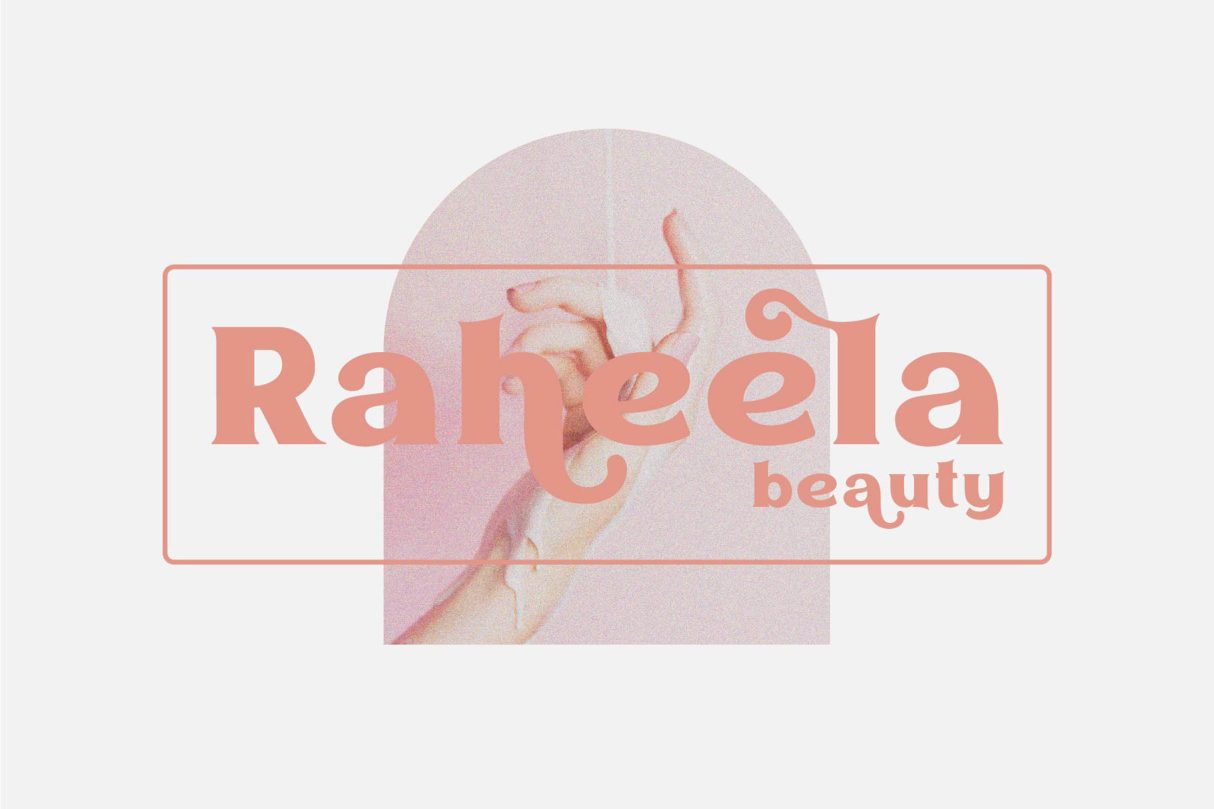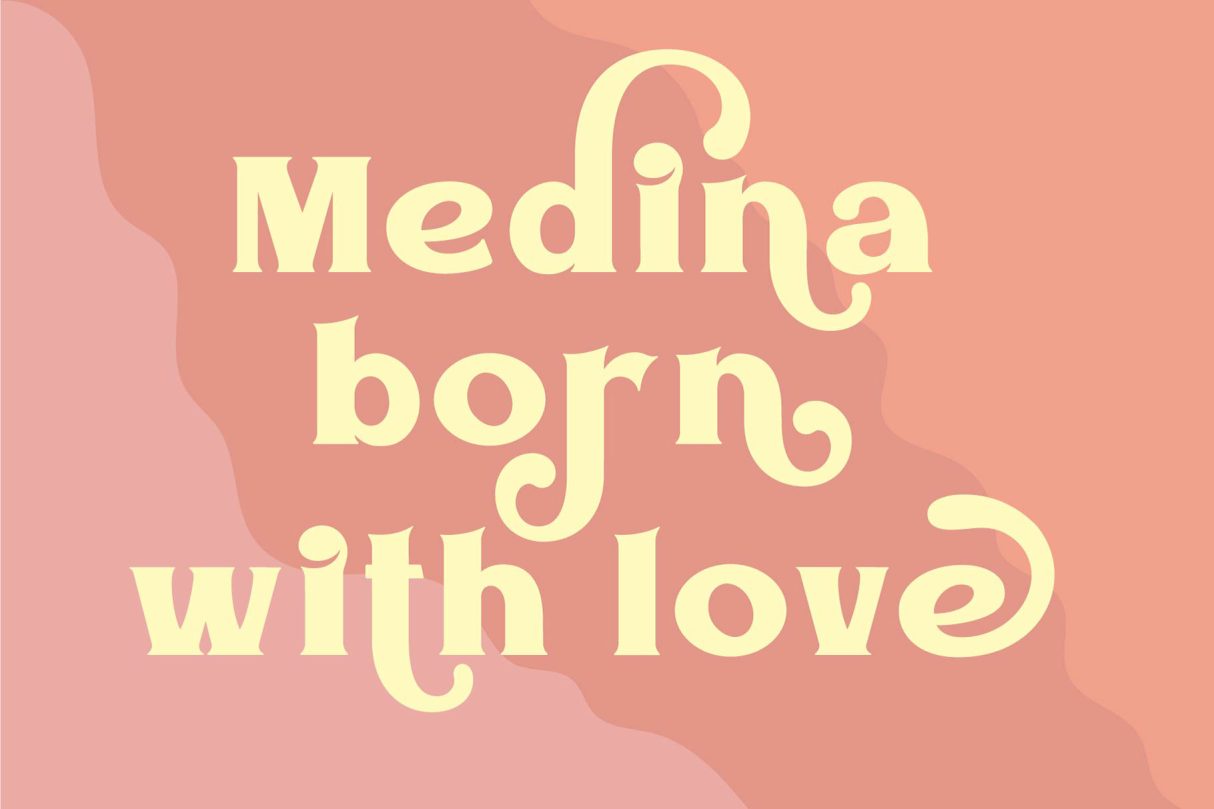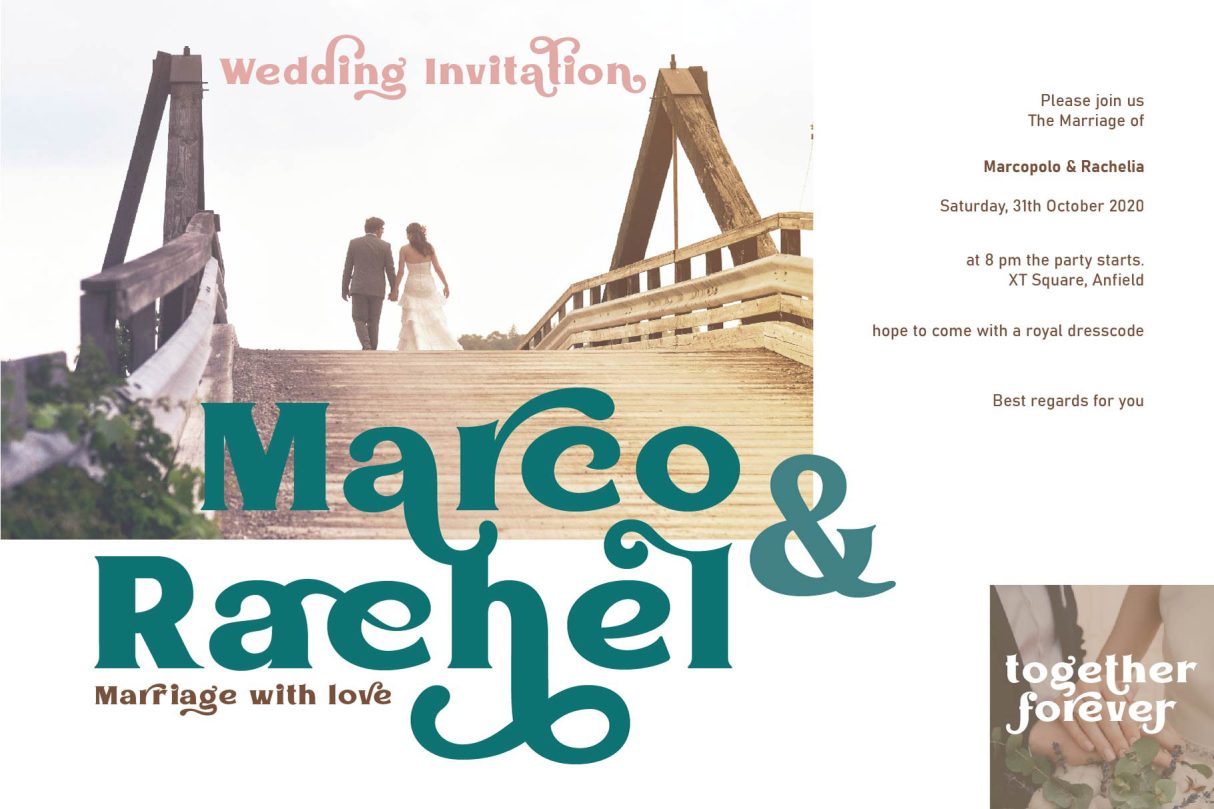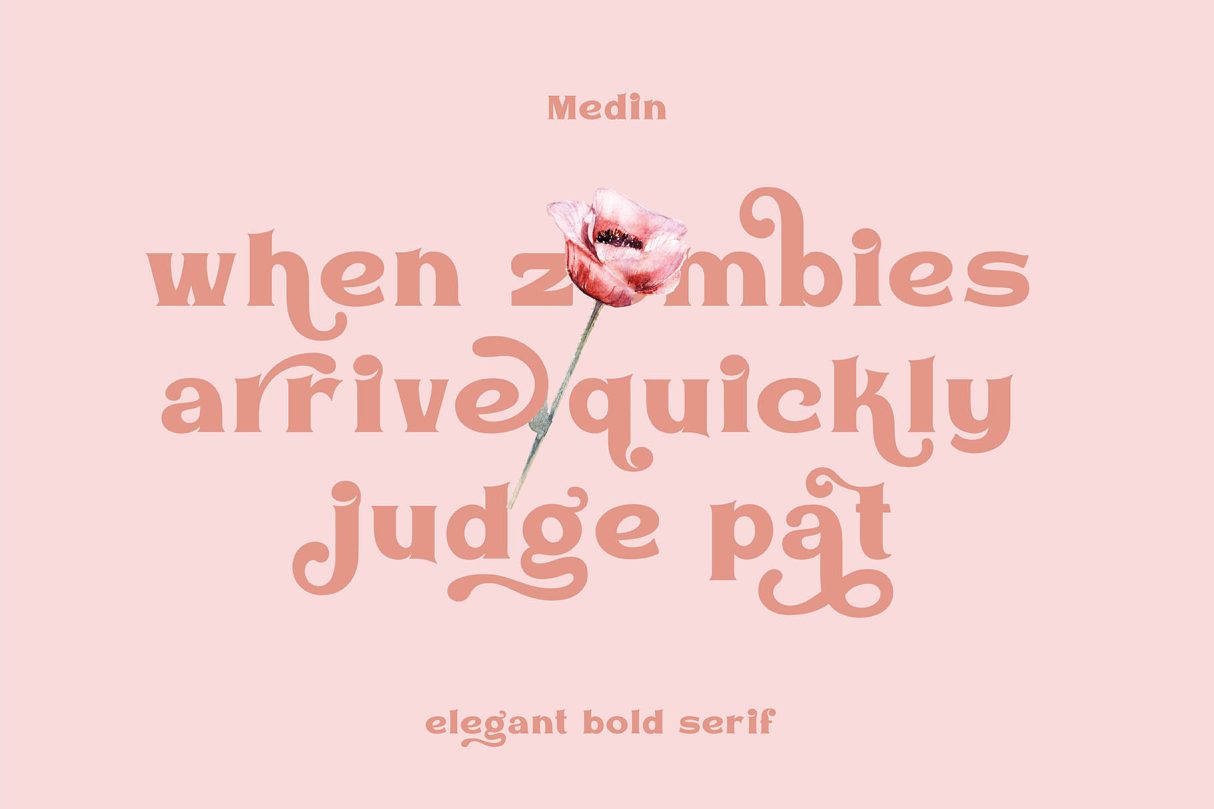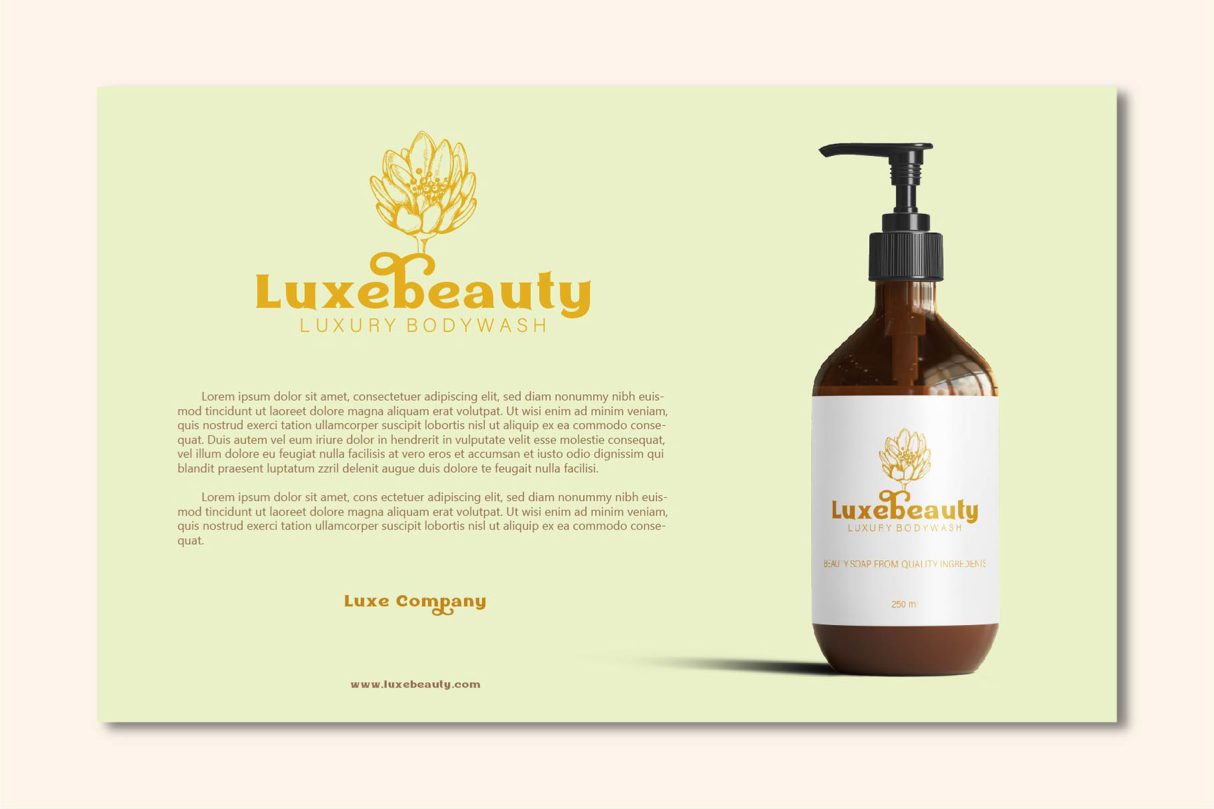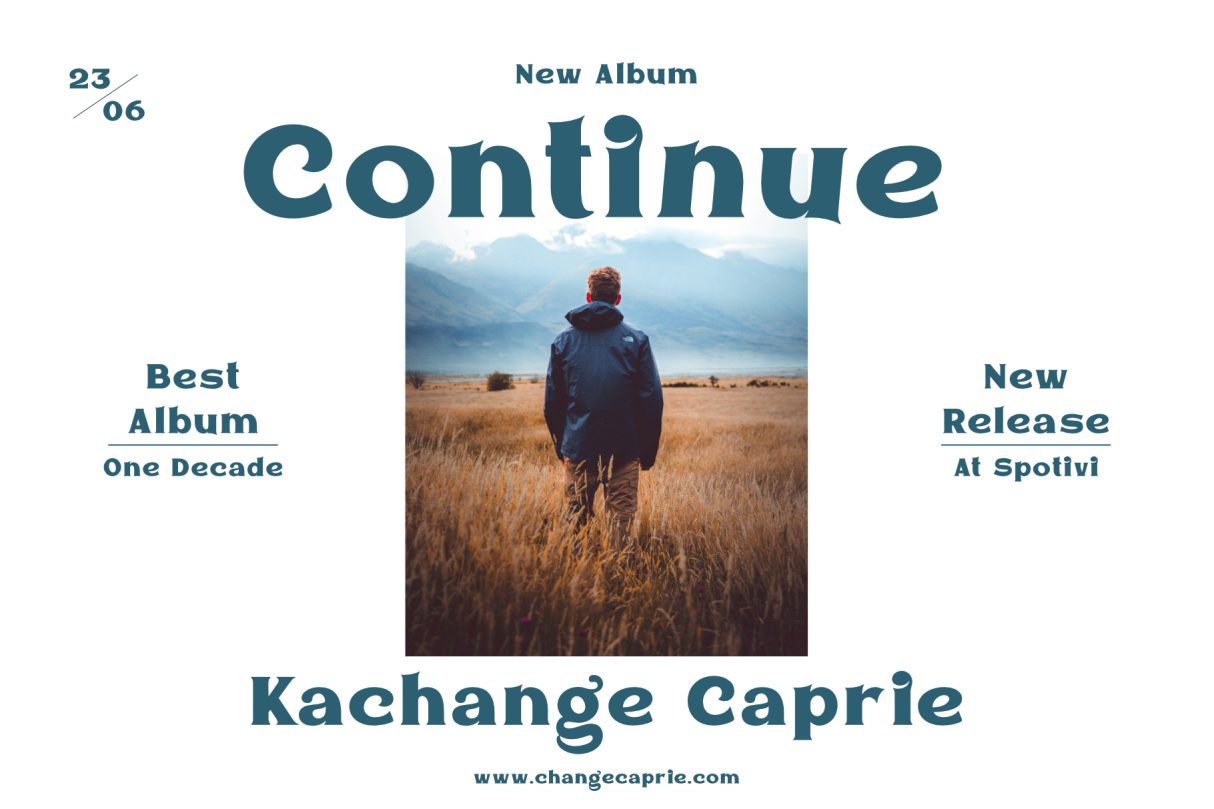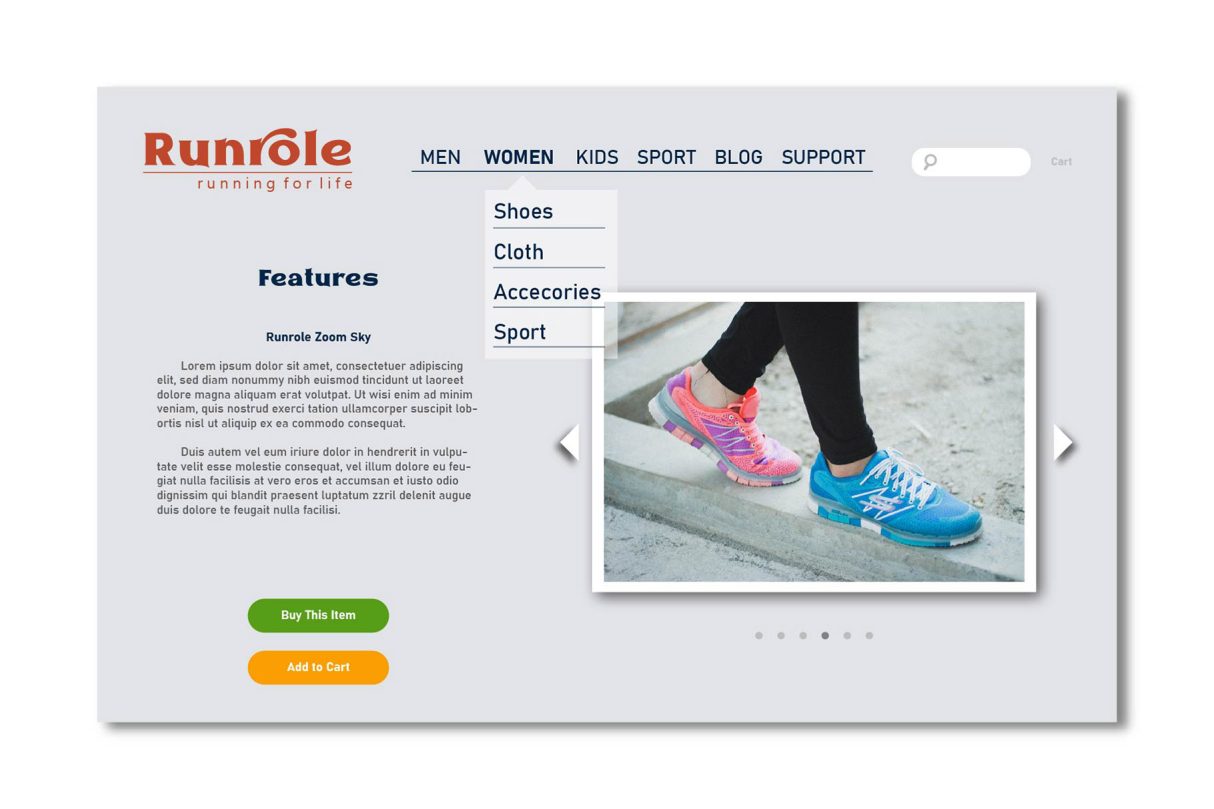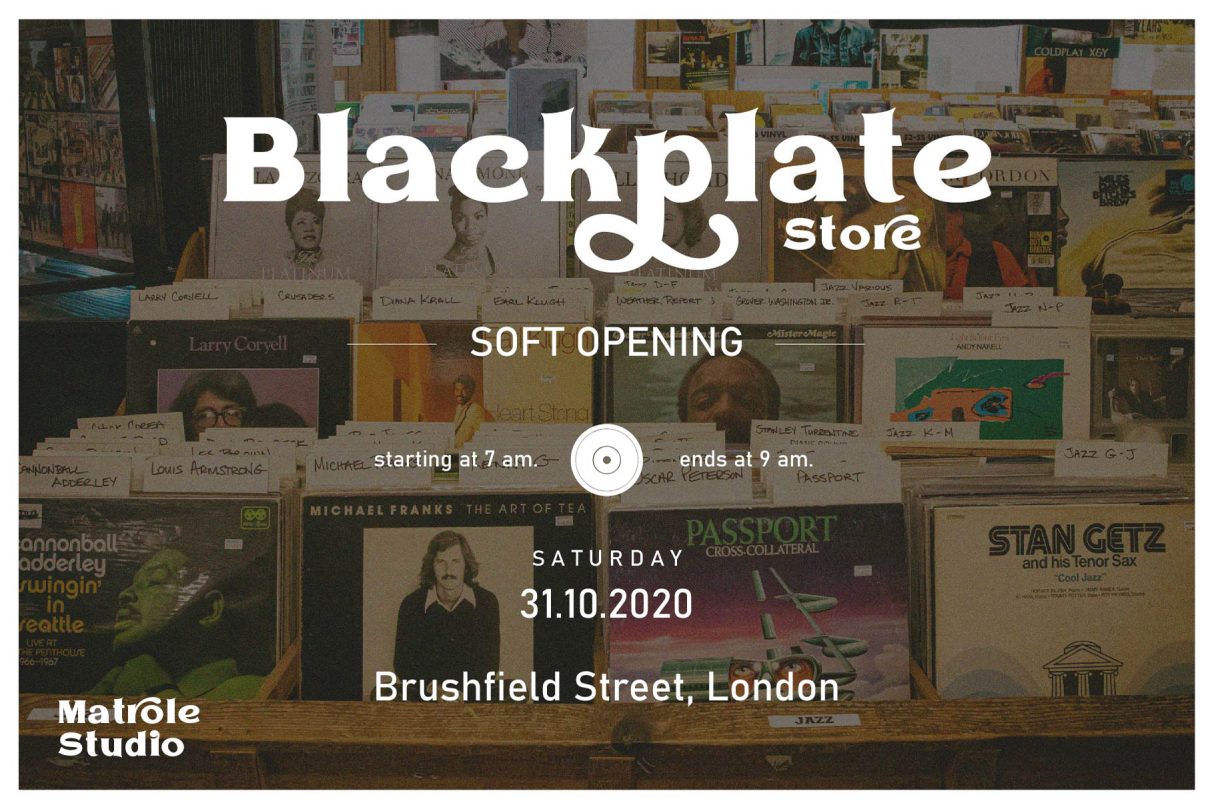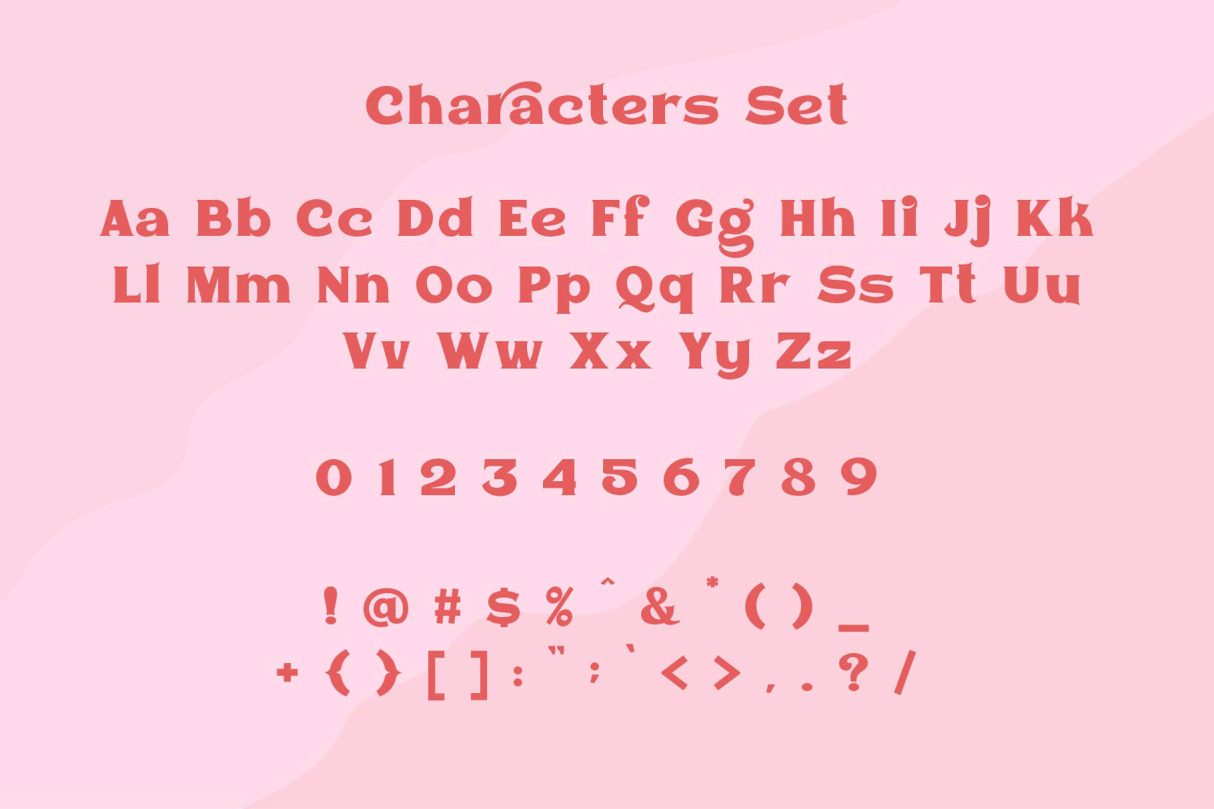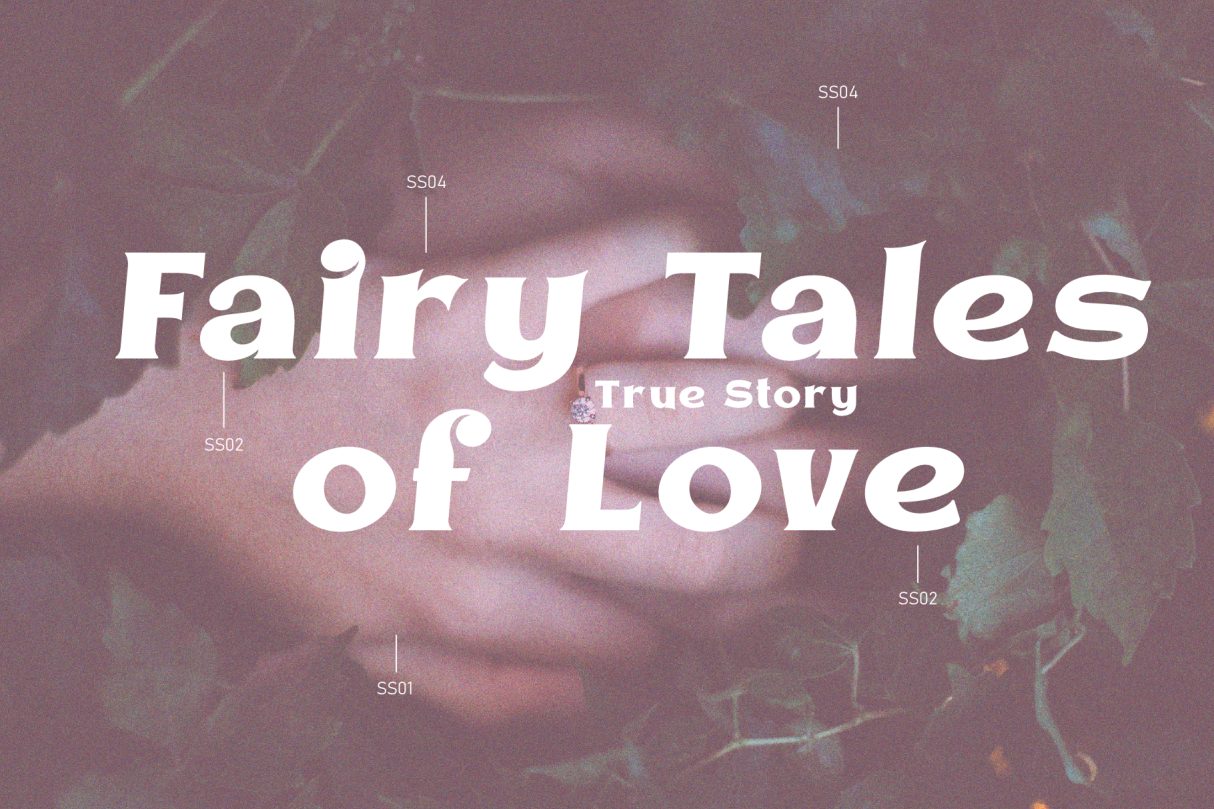
Medin is a serif font with elegant characters. Medin is perfect for your elegant-themed work, suitable also for elegant vintage. This font is available multilingual & alternate characters, making it easy to do work on various design themes. Medin is equipped with multilingual accents.